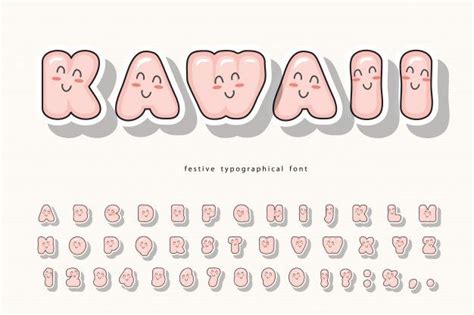
Bubble Kawaii Font: Adorable Fonts For Cute Designs
Readers, have you ever been scrolling through social media and stumbled upon designs that just make your heart melt? You know, those that scream, "kawaii!" with their cute bubble letters? If you're a designer, or simply someone who loves to create visually appealing content, then you've probably wondered, "How do they make that adorable bubble font?" You're not alone! Bubble kawaii fonts are incredibly popular for their playful charm and ability to add a touch of cuteness to any design.
What Are Bubble Kawaii Fonts?
Bubble kawaii fonts are characterized by their rounded, playful, and often slightly distorted letters. These fonts are inspired by the Japanese culture of kawaii, which translates to "cute" or "adorable." Their distinct, almost childlike style evokes a sense of joy and innocence, making them perfect for projects that require a cheerful and whimsical aesthetic.
The popularity of bubble kawaii fonts can be attributed to their ability to add a unique touch to designs. They instantly elevate the visual appeal of any project, from social media graphics and greeting cards to logos and website layouts. Their versatility allows for a wide range of applications, making them a favorite amongst designers and creators.
Types of Bubble Kawaii Fonts
There are several types of bubble kawaii fonts, each with its own unique charm. These variations cater to diverse aesthetic preferences and design needs, allowing you to choose the perfect font that aligns with your creative vision.
1. Classic Bubble Fonts
Classic bubble fonts are the quintessential example of the bubble kawaii style. They feature rounded letters with a slightly puffy appearance, often with a slight outline or shadow for added dimension. This type of font is perfect for creating a playful and cheerful feel, making it ideal for projects like birthday cards, children's books, and social media graphics.
2. Distorted Bubble Fonts
Distorted bubble fonts add a unique twist to the traditional bubble style. They feature letters that are stretched, squished, or otherwise manipulated to create a playful and dynamic effect. These fonts are perfect for adding a touch of whimsy to your designs, making them ideal for projects like posters, flyers, and product packaging.
3. Hand-Drawn Bubble Fonts
Hand-drawn bubble fonts bring a personalized touch to your designs. These fonts are created by hand, giving them a unique and charming character. They often feature irregular shapes, variations in letter thickness, and a slightly uneven line quality. Hand-drawn bubble fonts are perfect for adding a touch of warmth and authenticity to your designs, making them ideal for projects like greeting cards, invitations, and thank you notes.
1. Google Fonts
Google Fonts is a treasure trove of free fonts, including a diverse collection of bubble kawaii options. This platform offers a user-friendly interface, making it easy to browse, preview, and download your desired fonts. The best part is that these fonts are free for both personal and commercial use, giving you peace of mind when using them for your projects.
2. Font Squirrel
Font Squirrel is another excellent source for free fonts, including a curated selection of bubble kawaii styles. The platform offers a wide range of categories and filters, allowing you to easily find the perfect font to match your design needs. They also provide information about each font's license, ensuring you understand the usage rights before downloading.
3. Creative Market
Creative Market is a marketplace for high-quality design assets, including a vast collection of premium fonts. It offers a wide range of bubble kawaii fonts, often designed by talented independent artists. While Creative Market requires a paid subscription, the quality and diversity of fonts make it a worthwhile investment for designers who need to access premium, unique fonts.
4. Dafont
Dafont is a comprehensive website dedicated to fonts, offering a vast collection of free and paid options. They feature a dedicated category for bubble kawaii fonts, allowing you to browse a wide selection of styles. Dafont is a great resource for designers looking for a variety of fonts, including those with quirky and unique characteristics.